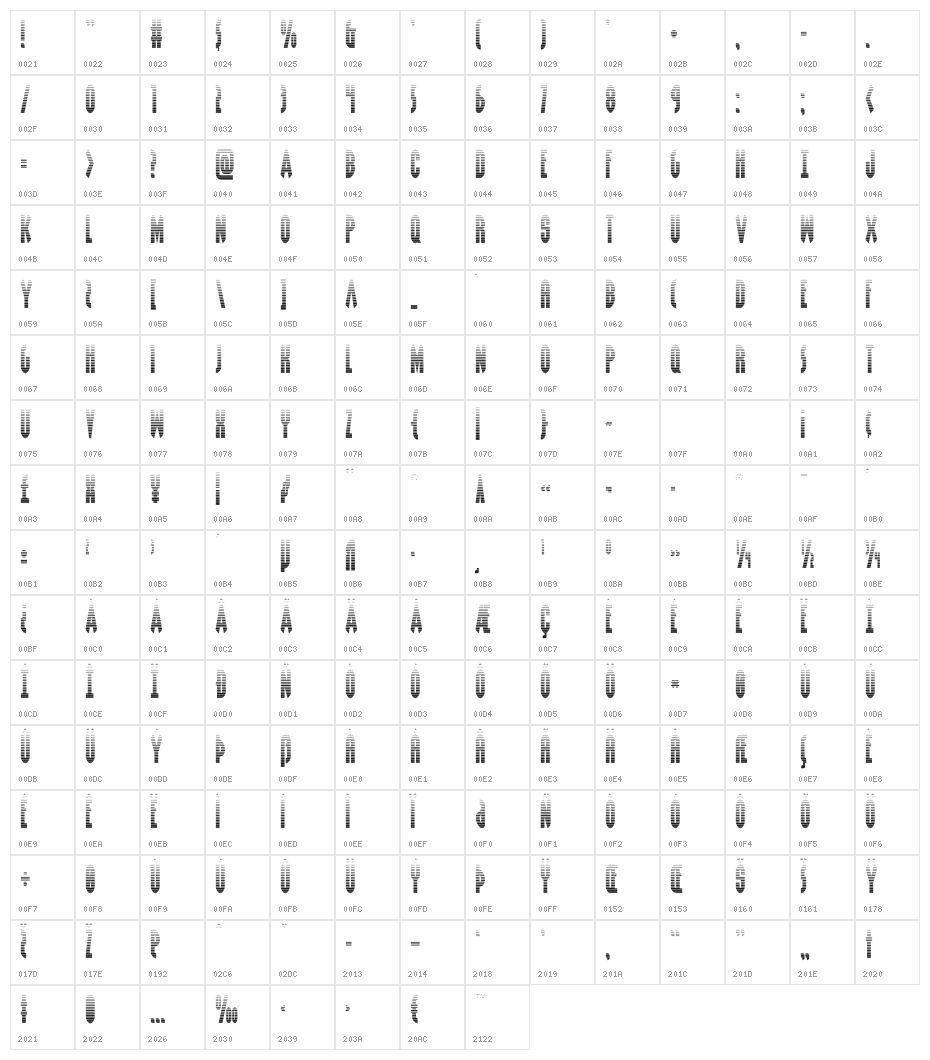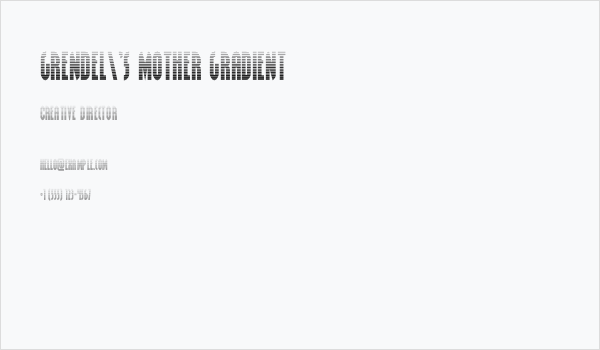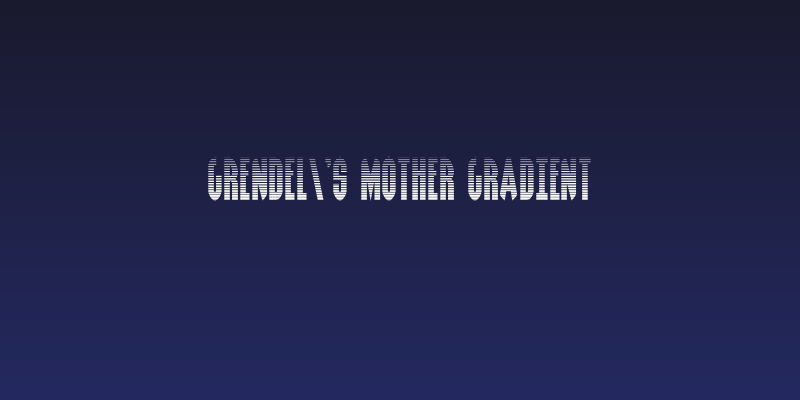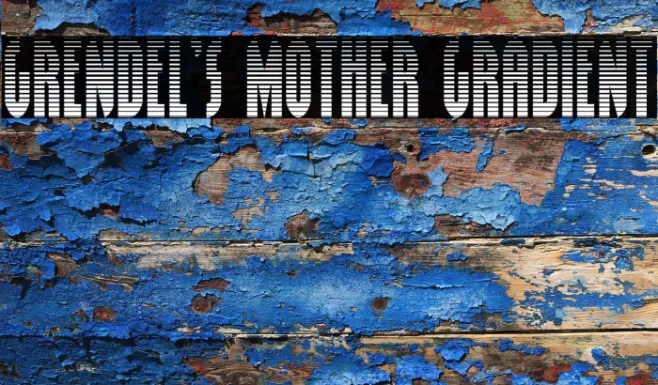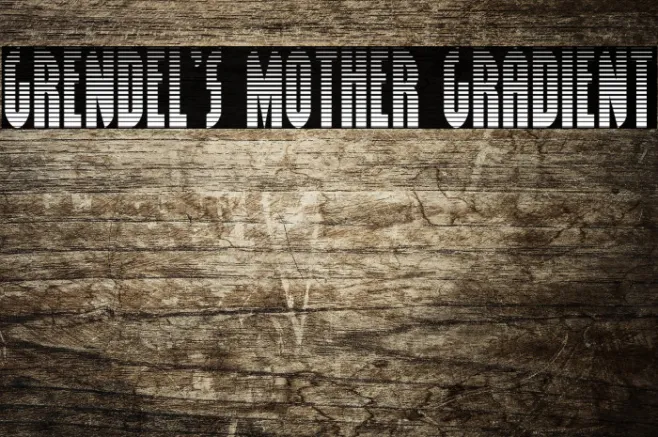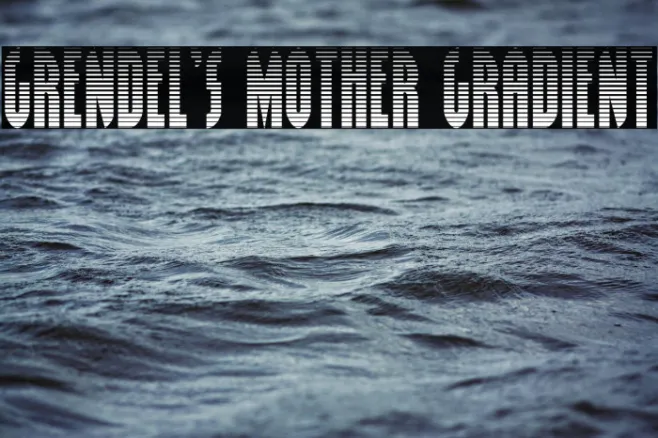
Grendel's Mother Gradient Font
Grendel's Mother Gradient Description
This font features a bold, decorative style with a unique gradient effect created by horizontal lines running through each character. The uppercase and lowercase letters, as well as numbers and special characters, maintain a consistent design that emphasizes a modern and artistic flair. The gradient effect gives the font a dynamic and eye-catching appearance, making it suitable for creative and bold design projects. The characters are wide with a slightly condensed appearance, and the spacing between them is normal, ensuring readability while maintaining its distinct style.
| Proposed Projects | Ideal for posters, album covers, branding, and any project that requires a striking and modern aesthetic. |